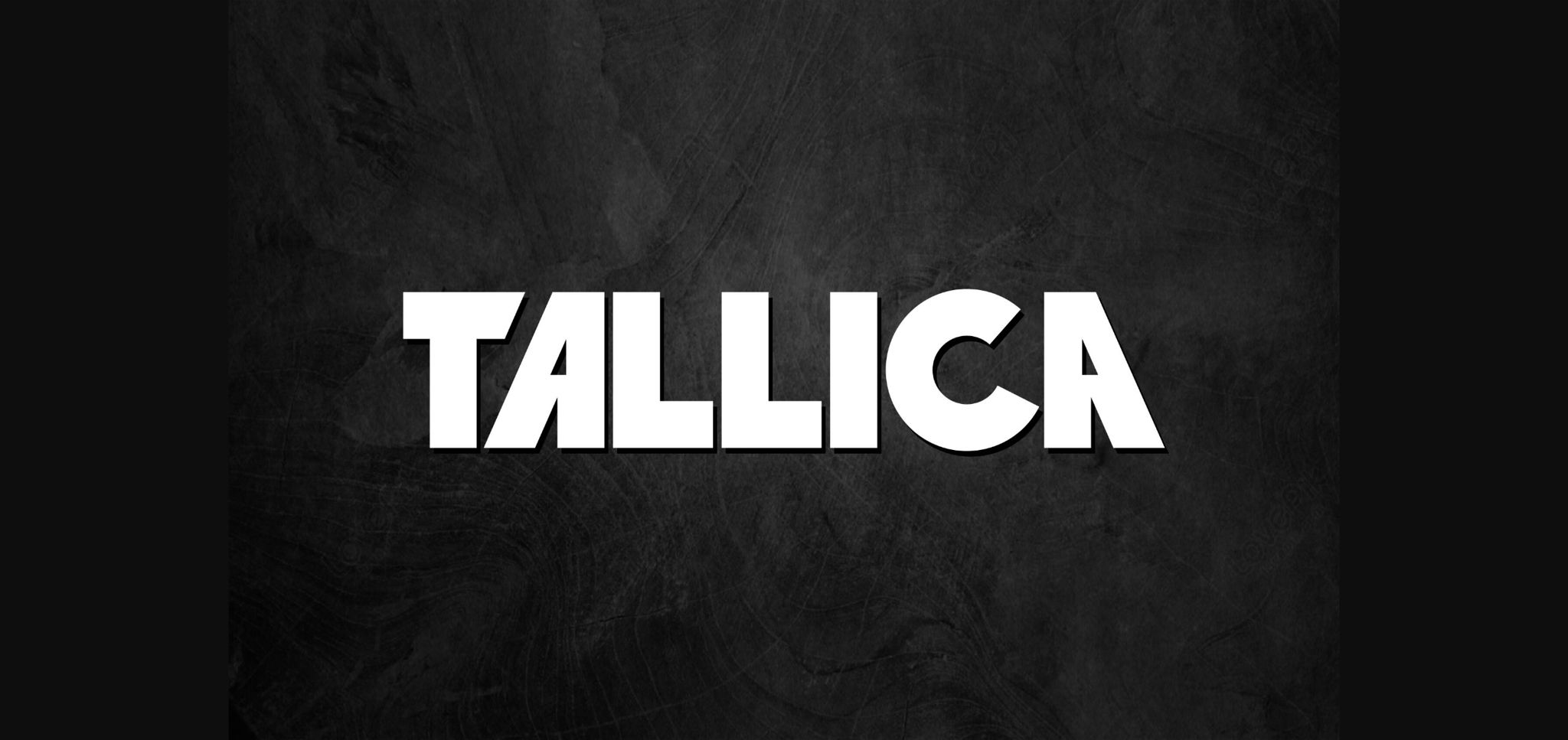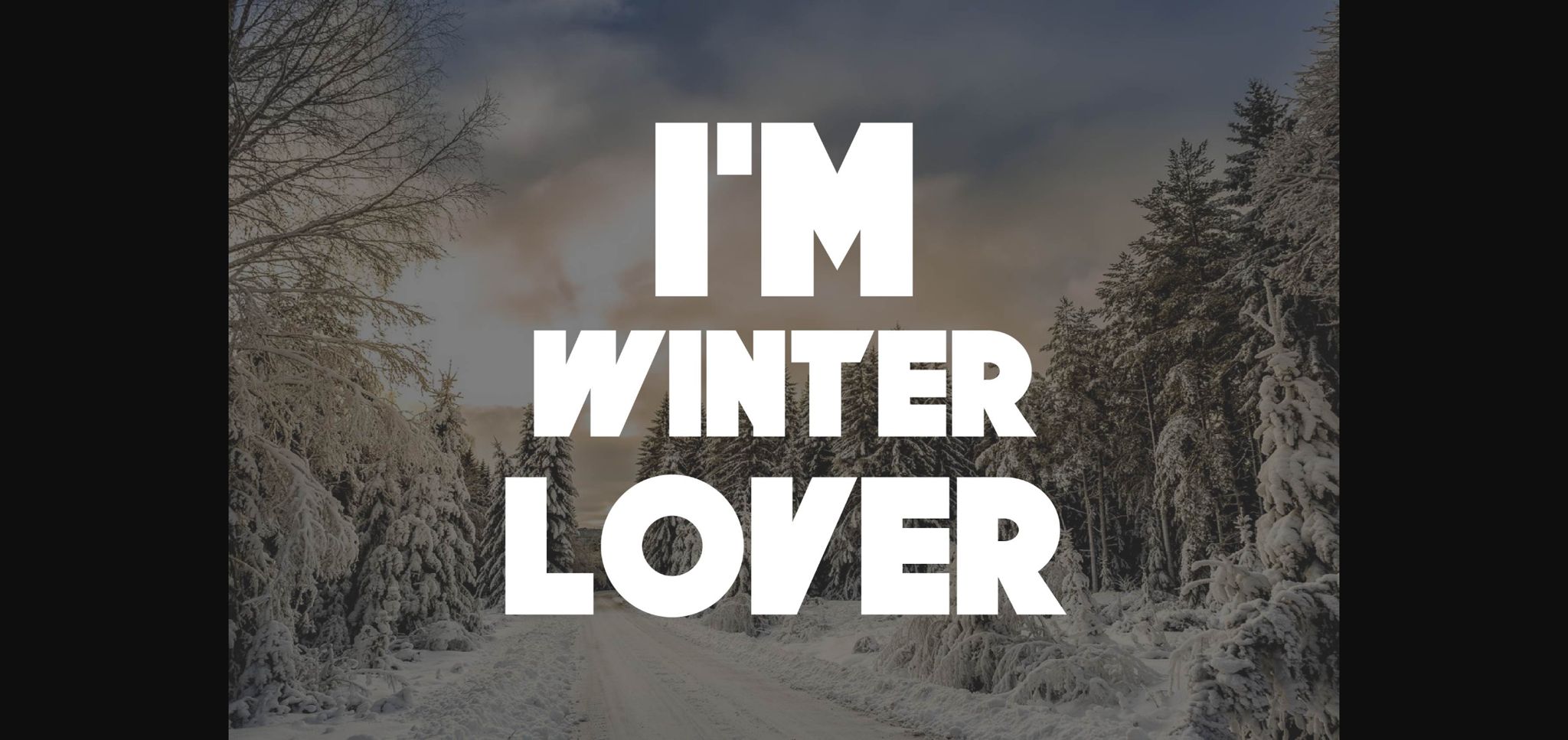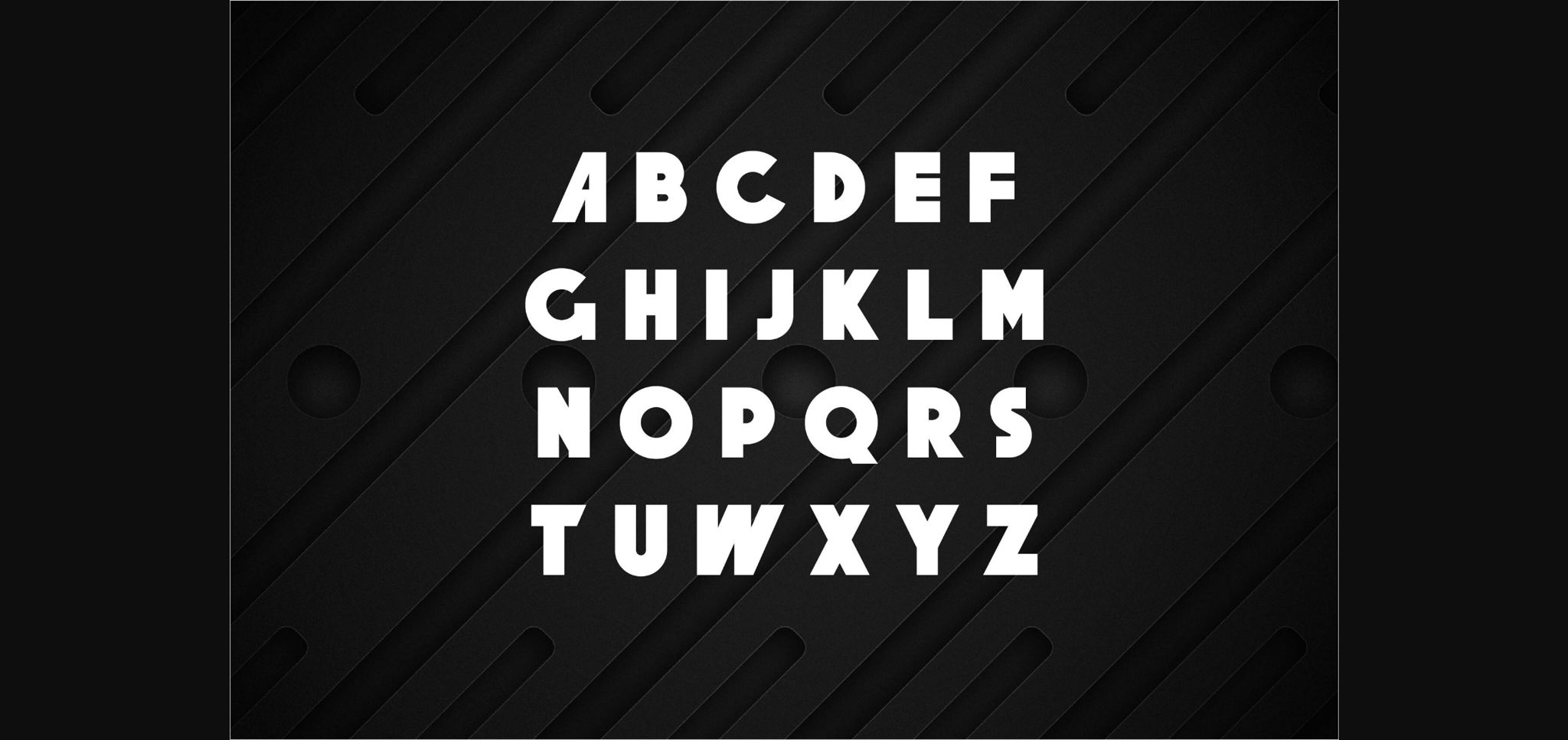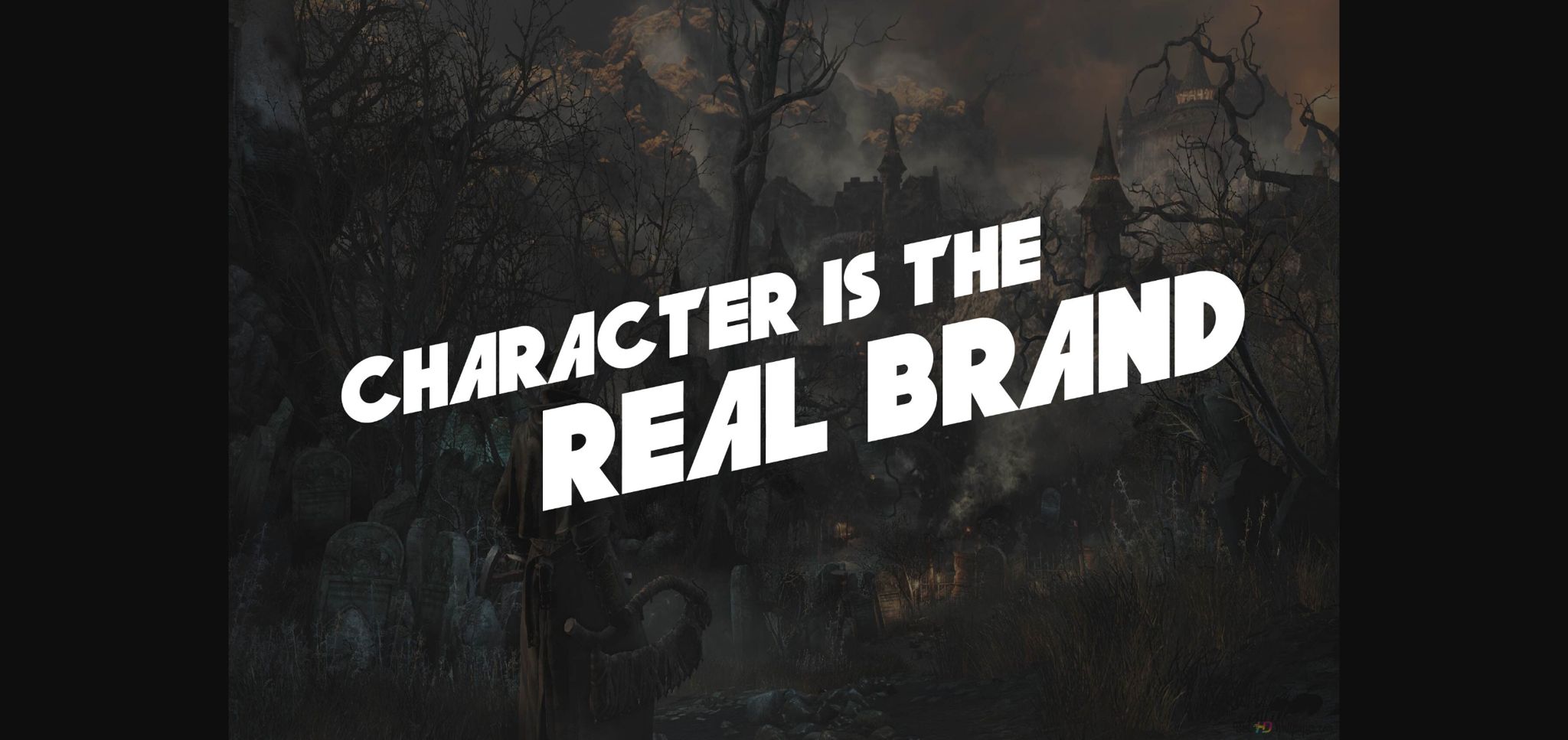
Tallica Font
About Tallica Font
Introducing Tallica, a Gothic-crafted Stylish Font exuding Display Quality. Perfect for Movie, Cartoon, Apps, Brand, Games, and T-shirt design, Tallica is a versatile creative powerhouse. Featuring 96 meticulously designed glyphs and 95 characters, it elevates visual storytelling with its distinctive flair, making it the ultimate choice for those seeking impactful and versatile typography across various design projects.